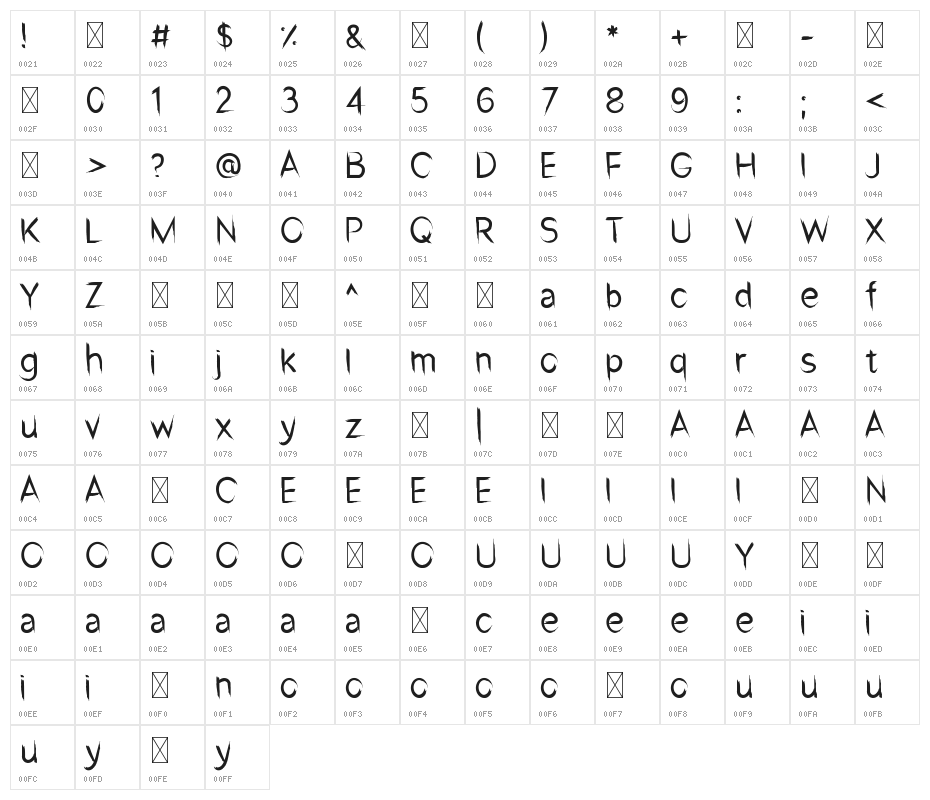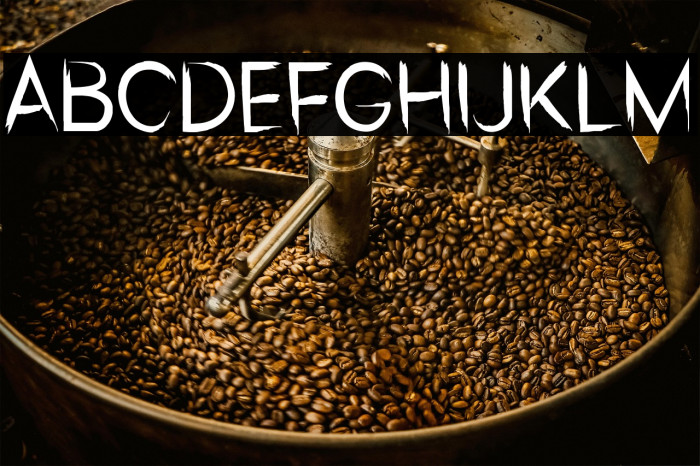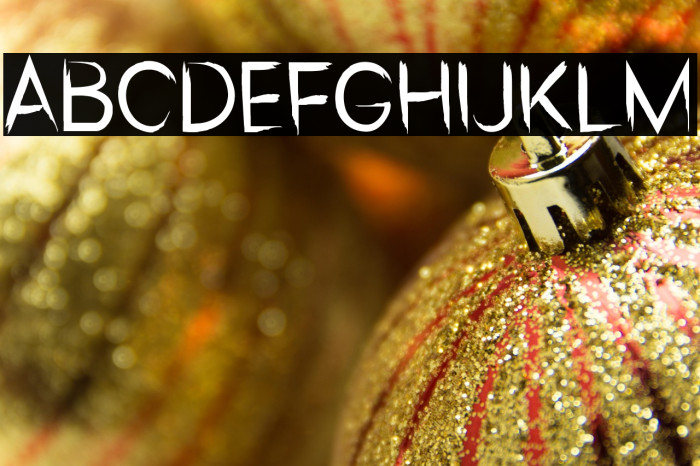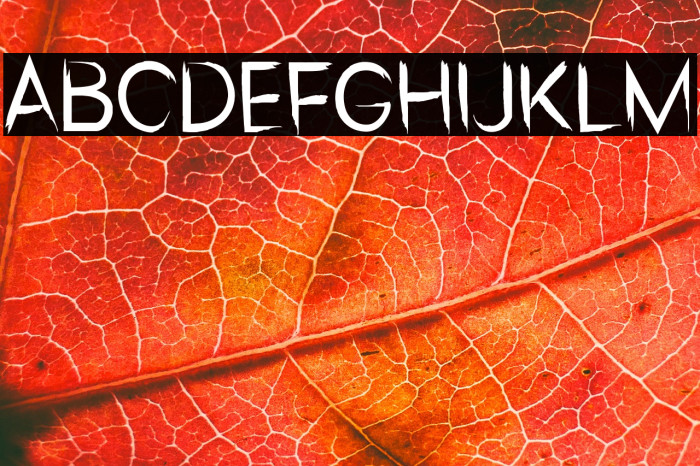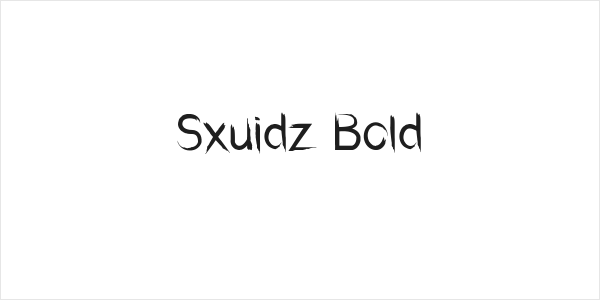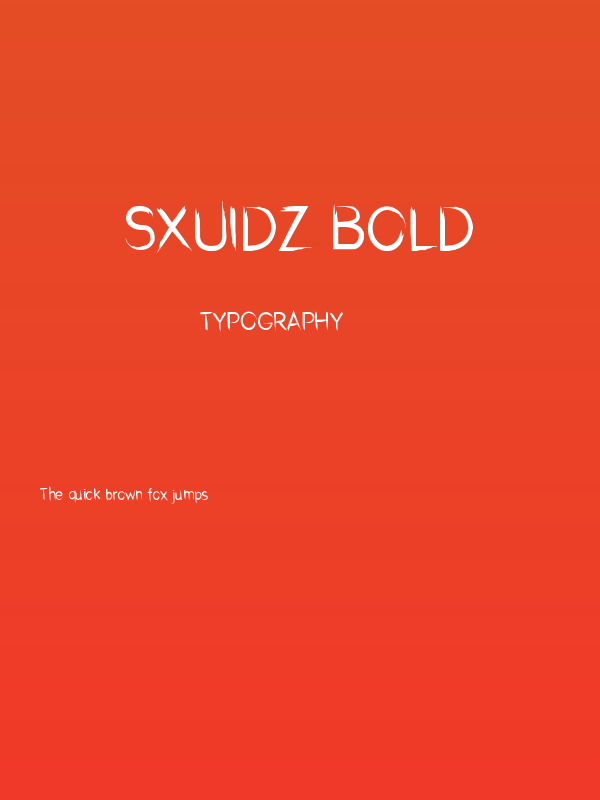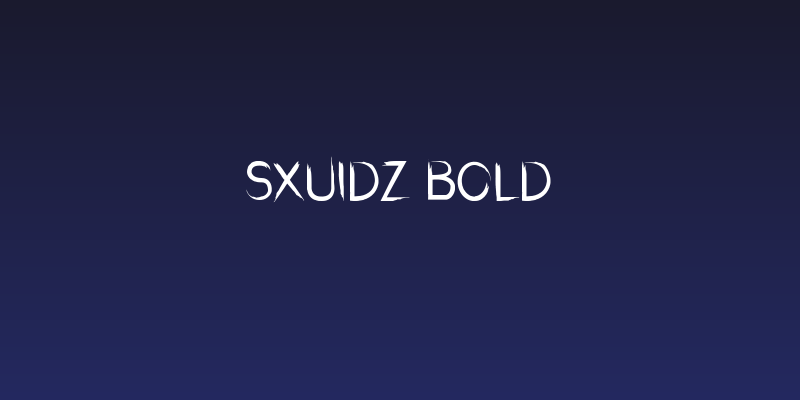
Sxuidz Bold Font
Sxuidz Bold Description
This font features a bold and dynamic style with sharp, jagged edges that give it a fierce and energetic appearance. The strokes are irregular and have a hand-drawn quality, adding a sense of movement and intensity. The uppercase and lowercase letters maintain a consistent height, while the numbers and special characters follow the same edgy design. The overall look is both modern and slightly aggressive, making it stand out in any design. The font's unique characteristics make it suitable for projects that require a bold statement.
| Overall Style | Modern, Aggressive |
| Proposed Projects | Ideal for music album covers, event posters, video game titles, and edgy branding projects. |